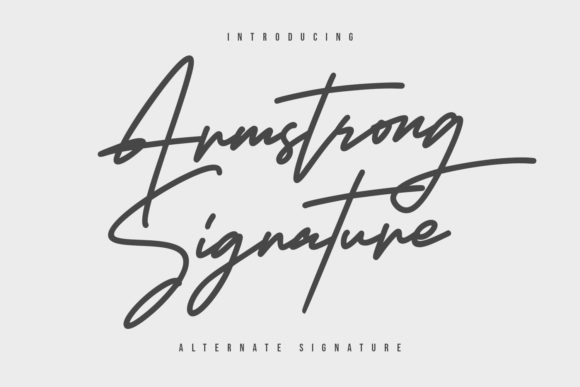
Unleash Your Creativity with the Armstrong Signature Font
Have you ever stared at a blank canvas, struggling to find the perfect font to bring your design to life? You’re not alone. As creatives, we’ve all been there – searching for that elusive font that captures the essence of our vision. For many, the journey ends with a generic font that fails to deliver the desired impact.
Enter the Armstrong Signature Font, a masterfully designed handwritten font that’s poised to become your new favorite. This exquisite font seamlessly blends classy calligraphic influences with a contemporary twist, making it the perfect addition to any design project. Whether you’re a seasoned designer or just starting out, the Armstrong Signature Font is a valuable tool that will help you elevate your work to new heights.
Armstrong Signature Font Key Features
- Font Type: Script Font
- Unique characteristic: Elegant, cursive script font with a touch of sophistication and professionalism.
Designer Review: Armstrong Signature Font
I recently had the chance to work with the Armstrong Signature Font, and I wanted to share my honest thoughts on it.
- The Armstrong Signature Font has a unique and elegant look that is perfect for creating a sense of sophistication and professionalism.
- The font is highly customizable, allowing you to adjust the size, color, and spacing to suit your design needs.
- The font is well-suited for use in a variety of contexts, from business cards and letterheads to websites and marketing materials.
- The font can be quite heavy and may not be suitable for use in smaller text or for readers with visual impairments.
- The font is not as versatile as some other fonts, and may not be the best choice for use in creative or playful designs.
- The font may require additional styling or formatting to achieve the desired look, which can add extra time and effort to your design process.
Overall, I think the Armstrong Signature Font is a solid choice for designers who need a professional and elegant font for their projects. While it may have some limitations, its unique look and high level of customization make it a great option for a wide range of design applications.
Getting the Most Out of Armstrong Signature Font
For best results, use Armstrong Signature Font in conjunction with bold or italic text to create a striking visual effect. Experiment with different font sizes and colors to achieve a unique look.
Armstrong Signature Font is ideal for creating professional logos, branding materials, and marketing materials. It’s also suitable for use in presentations, documents, and social media graphics.